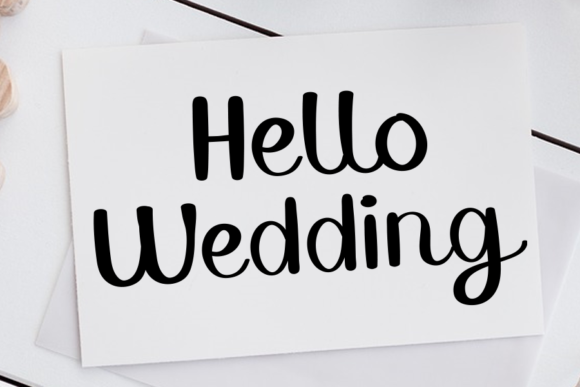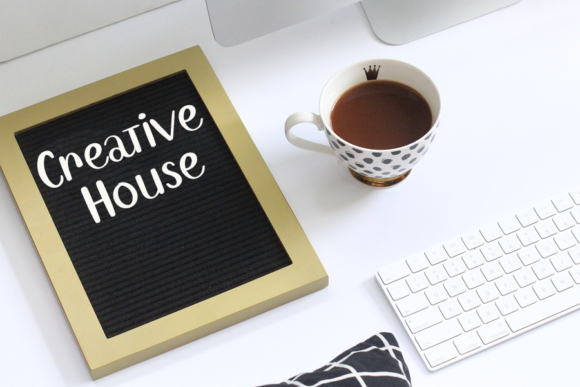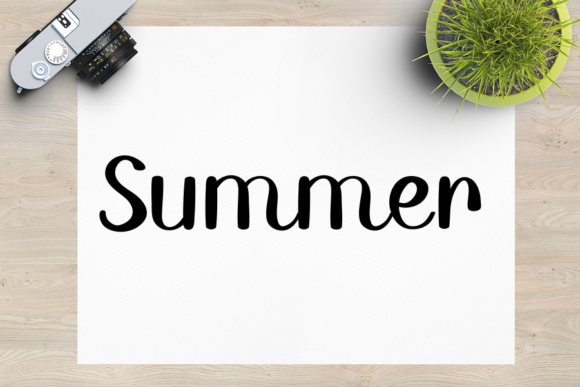
Mountain Font
Mountain is a cute and trendy handwritten font. Its natural and unique style makes it incredibly fitting to a large pool of designs. The only limit is your imagination!